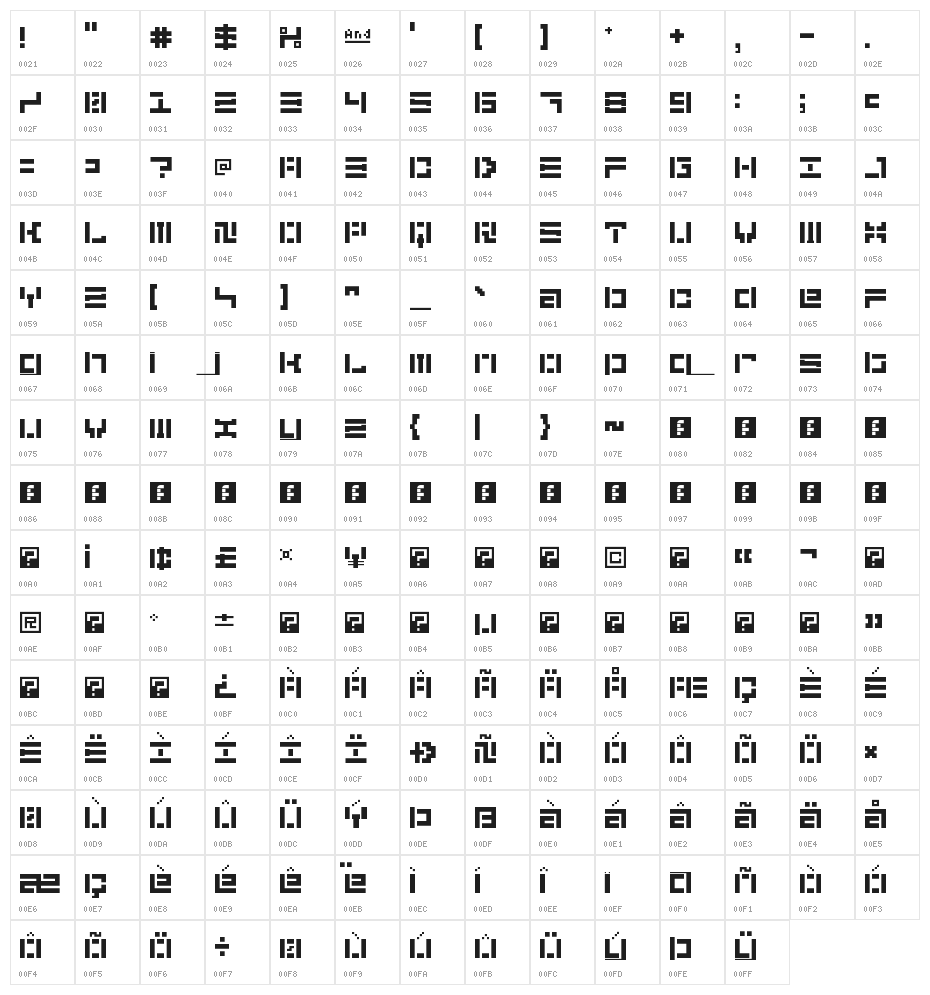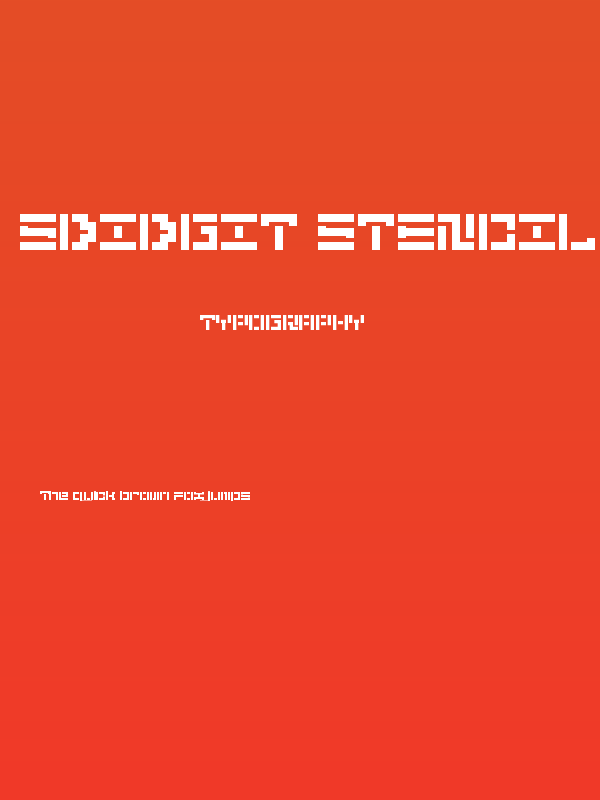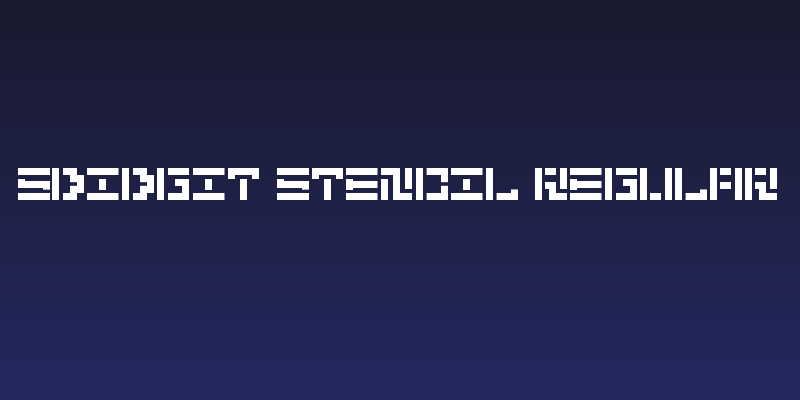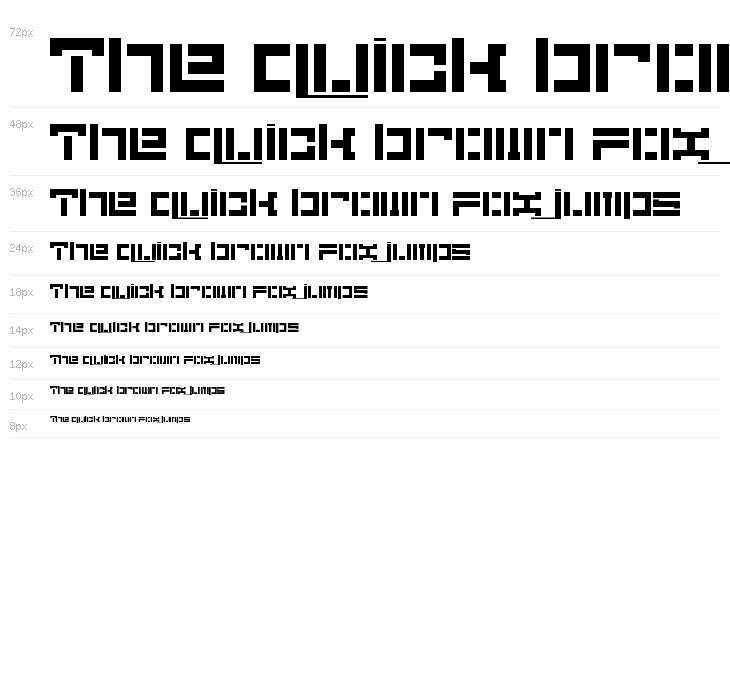
5Didgit Stencil Regular Font
5Didgit Stencil Regular Description
This font features a bold, geometric stencil design with a distinctly digital and futuristic appearance. Each character is constructed with sharp, angular lines and block-like shapes, creating a sense of precision and modernity. The stencil gaps within the characters add an industrial feel, reminiscent of digital displays or military stencils. The uppercase and lowercase letters maintain a consistent style, with the lowercase being slightly smaller but equally bold. Numbers and special characters follow the same design principles, ensuring uniformity across the font. The overall look is striking and attention-grabbing, making it suitable for projects that require a strong visual impact.